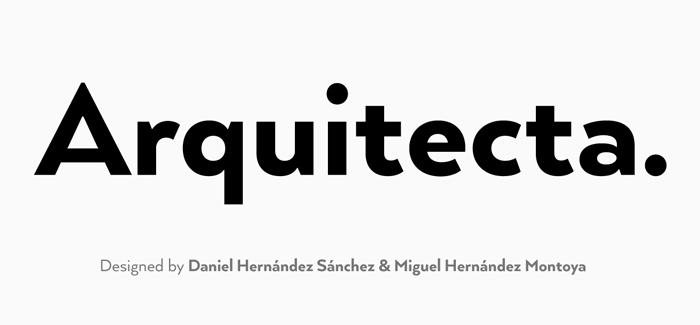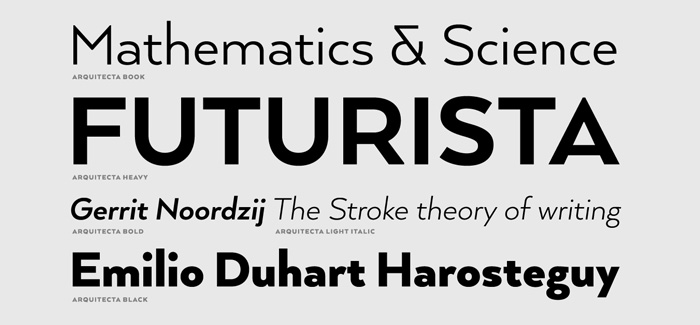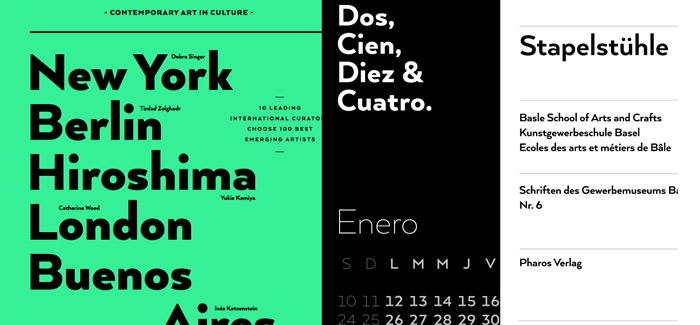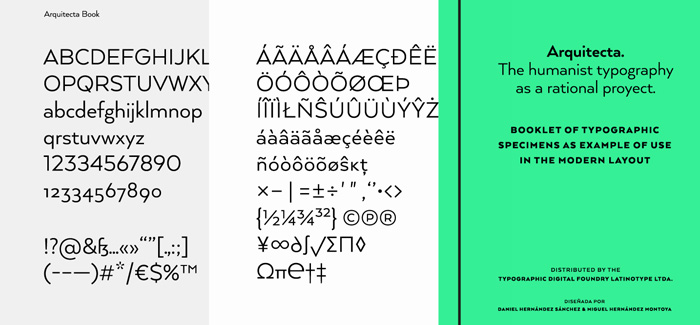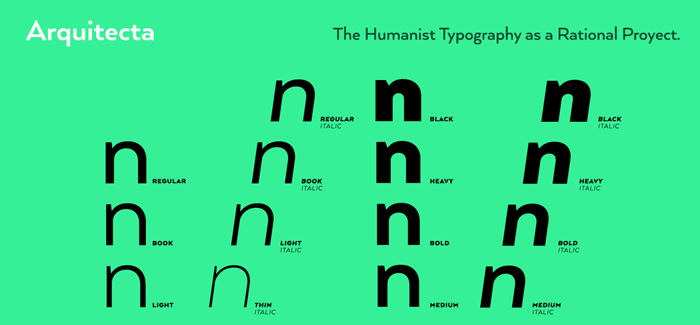
LatinoType’s Arquitecta font
LatinoType’s Arquitecta font by Daniel Hernández Sánchez and Miguel Hernández Montoya is a contemporary Sans in the spirit of the prominent Bauhaus principle ‘form over function’. Arquitecta font family is inspired by the American & European typography from the first half of the past century – the notable time when the foundations of the modern graphic design were laid.
LatinoType’s Arquitecta font family is characterized by a strong rational geometry, and is suitable both for text layout and continuous reading. It consists of 8 upright romans with the corresponding italics and provides the following features: European accents, Old Style Numbers, Numerators & Fractions; ink traps to avoid press impressing spots & hinting optimized; small X-height with accentuated ascenders and descenders.
Designers: Daniel Hernández, Miguel Hernández
Publisher: Latinotype